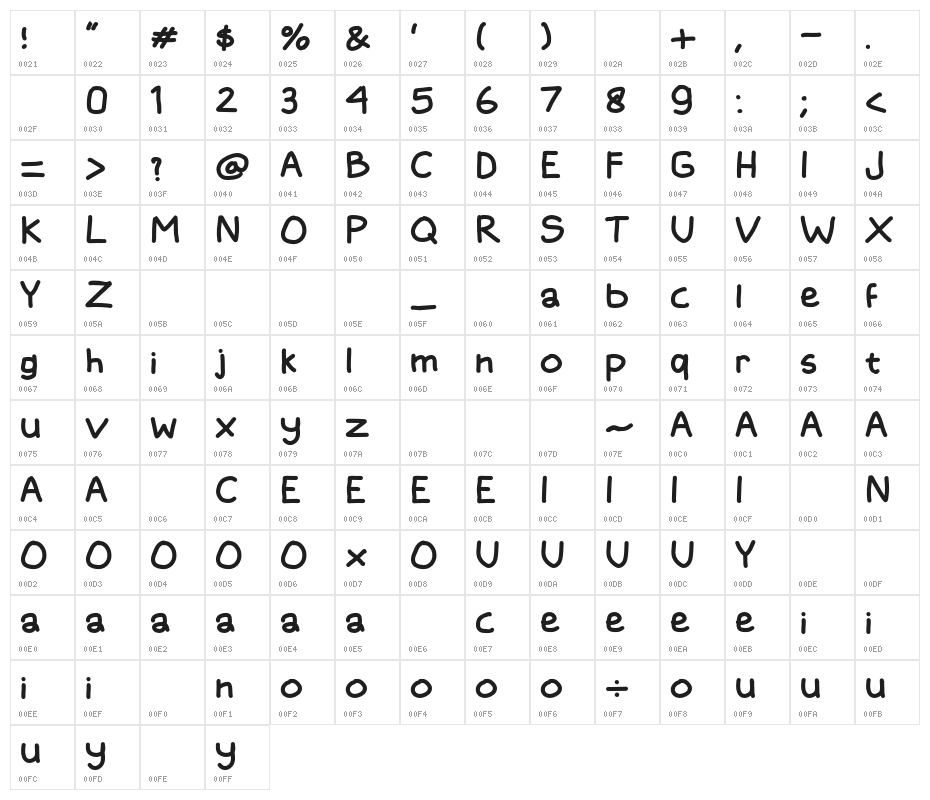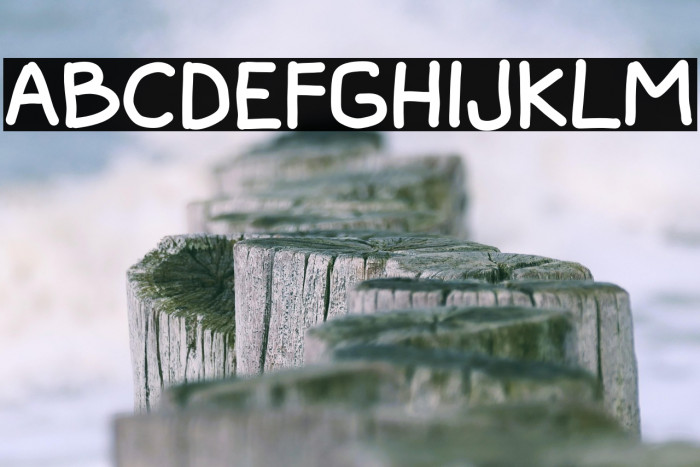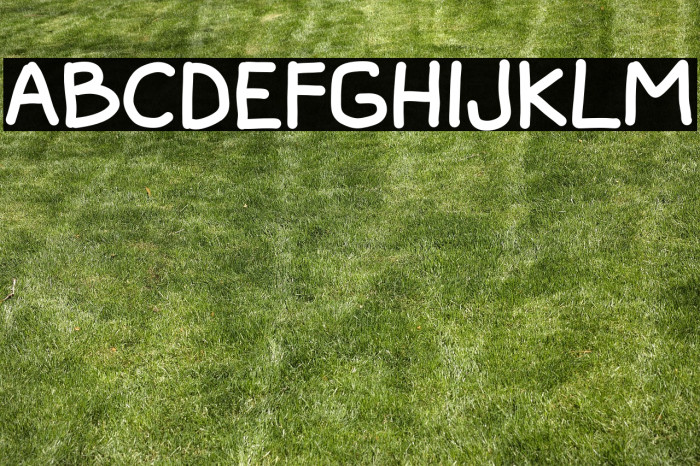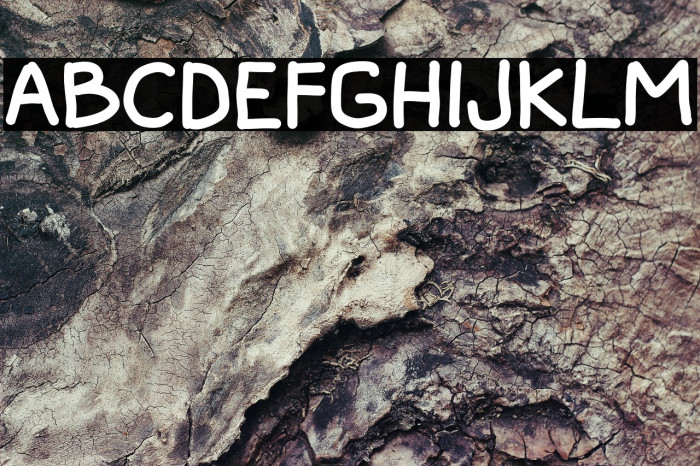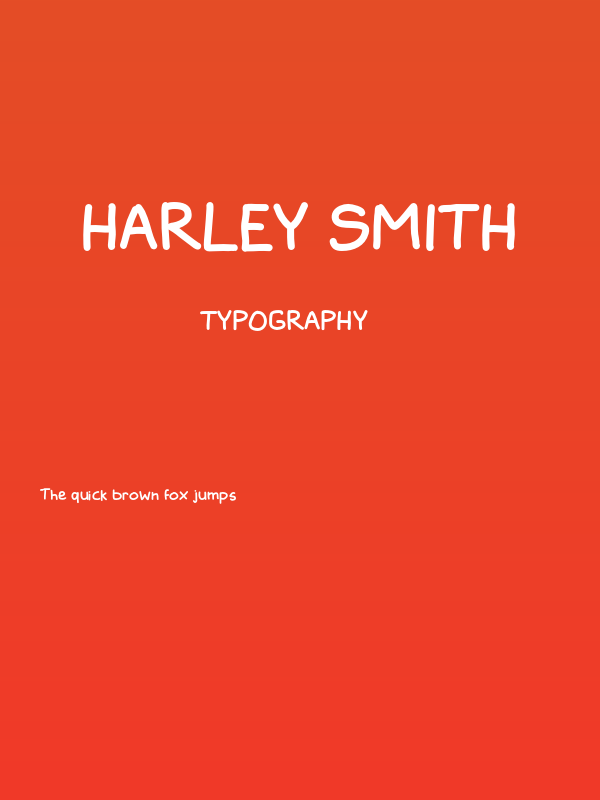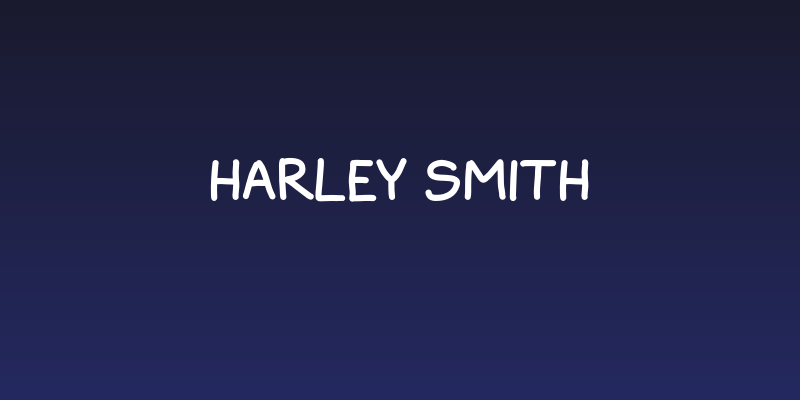
Harley Smith Font
Harley Smith Description
A playful, handwritten font with rounded edges and a casual style.
| Use Case | Headlines, Informal text, Branding |
| Proposed Projects | Children's books, casual invitations, playful branding. |